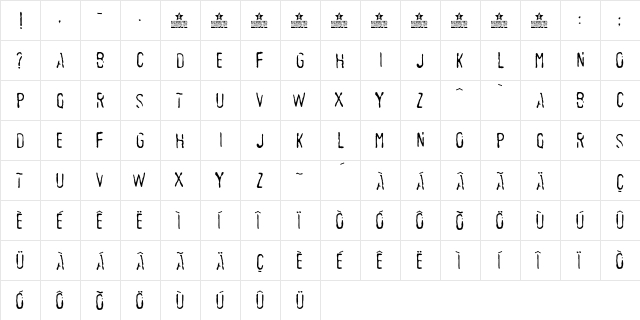
SEDEX PERSONAL USE Regular
| Foundry | BILLY ARGEL |
| Designer | BILLY ARGEL |
Design Context for SEDEX PERSONAL USE Typeface
SEDEX PERSONAL USE is a composed and adaptable typeface that performs quietly and consistently across a wide range of design contexts.